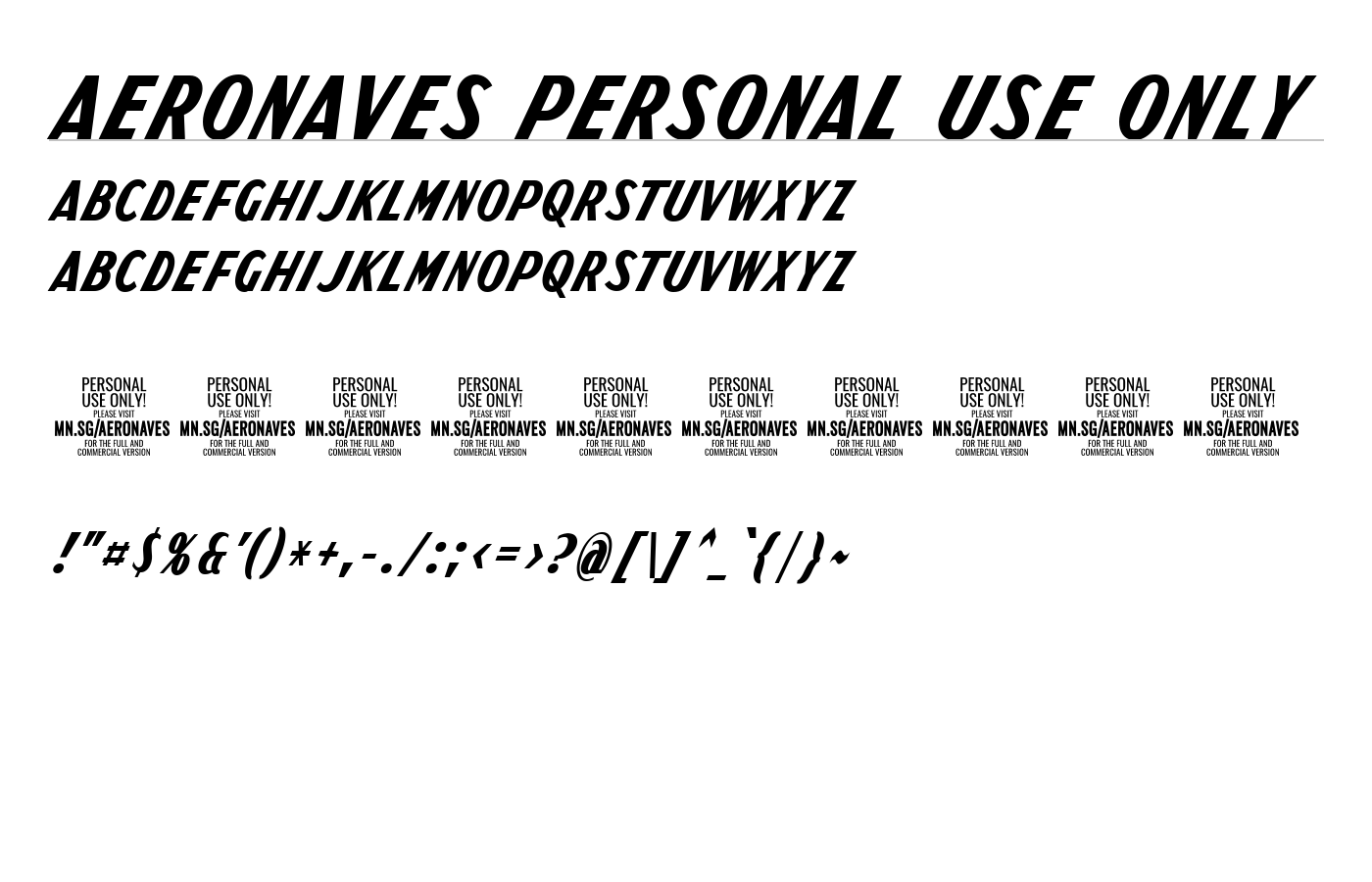
Aeronaves is a sleek, condensed sans serif font with an italic slant that gives it a dynamic, forward-moving feel. Its clean, geometric letterforms and consistent stroke weight make it ideal for modern, sporty, and professional branding, especially for headlines or logos where a sense of speed and precision is desired. This font works well in contexts like technology, aviation, and active lifestyle brands that want to convey energy and sophistication.
Aeronaves PERSONAL USE ONLY Font
About Aeronaves PERSONAL USE ONLY Font